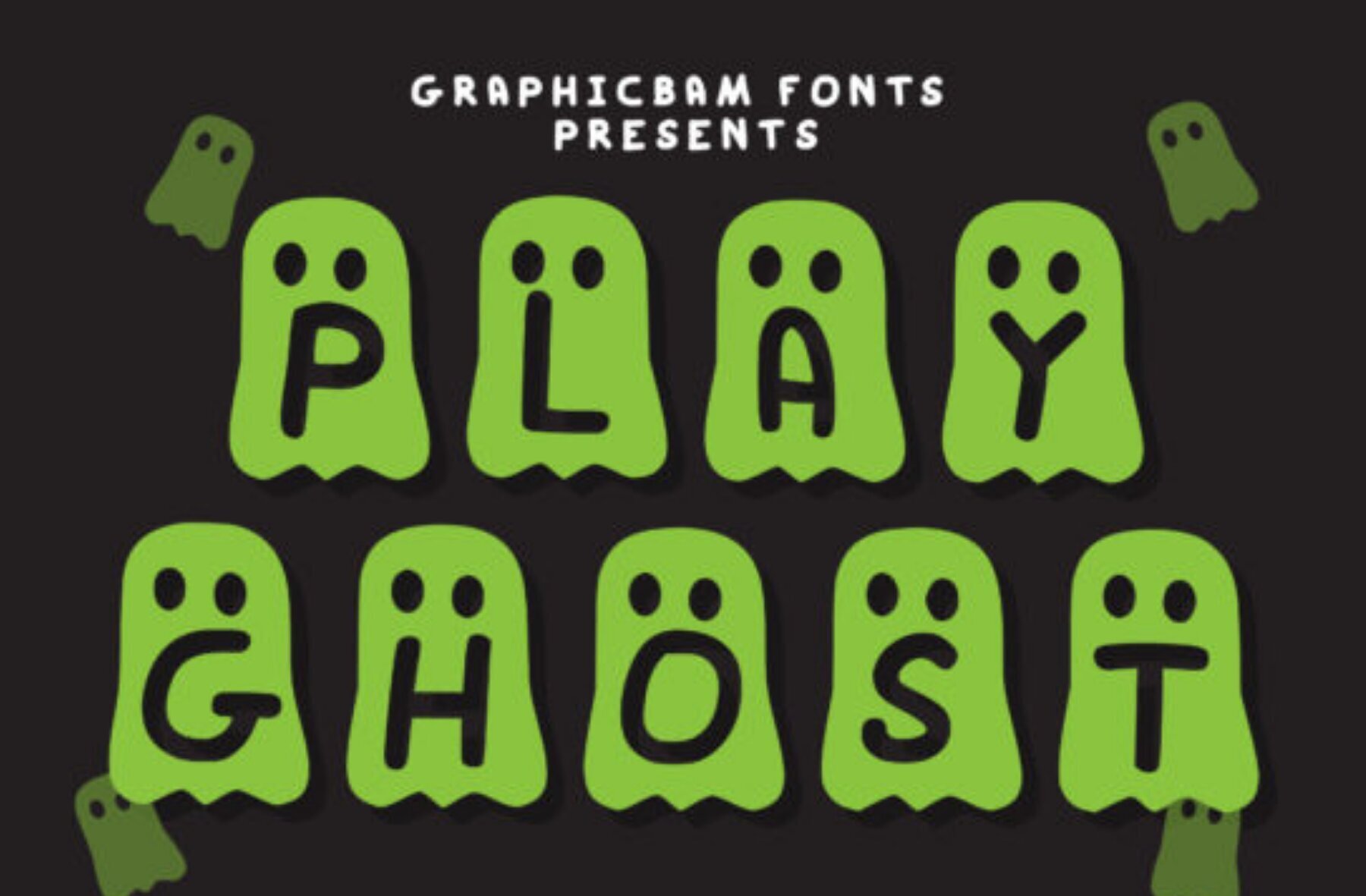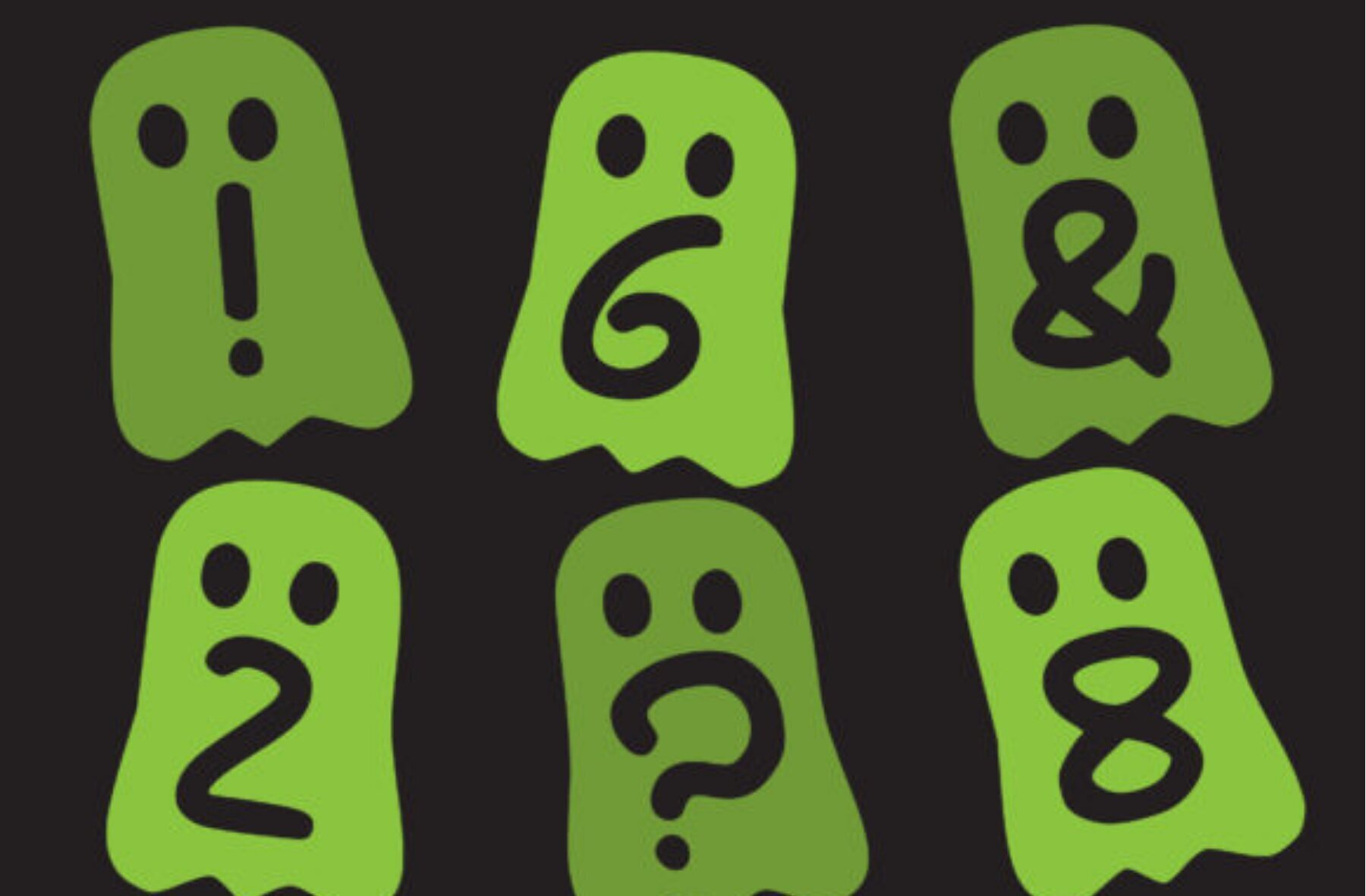
Play Ghost Font
Play Ghost Regular
Play Ghost offers an intriguing style perfect for a range of creative projects. Its cool aesthetic makes it ideal for crafting, digital design, presentations, and greeting card creation. This versatile decorative font adds a distinctive touch to your work, helping your projects stand out in any medium.Play Ghost: A Unique Decorative Font